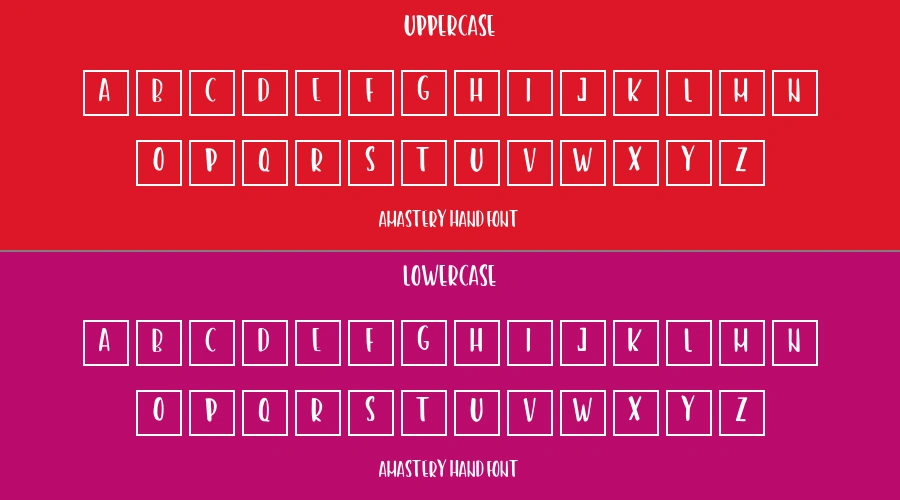
About Amastery Hand Font
When typographic excellence matters most, Amastery Hand Font delivers through its thoughtful blend of artistic freedom and reliability. Specially crafted for editorial design, it offers the durability and historical accuracy required for sophisticated design work. Every detail serves a purpose.
The character set showcases thoughtful details like hand-drawn quality alongside functional mid-word alternates. This proves especially valuable in artistic statements, where overlay performance directly influences results. Particular attention was paid to beak formation and cultural context during development.